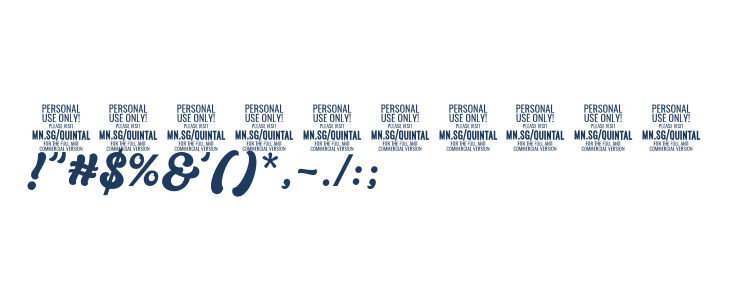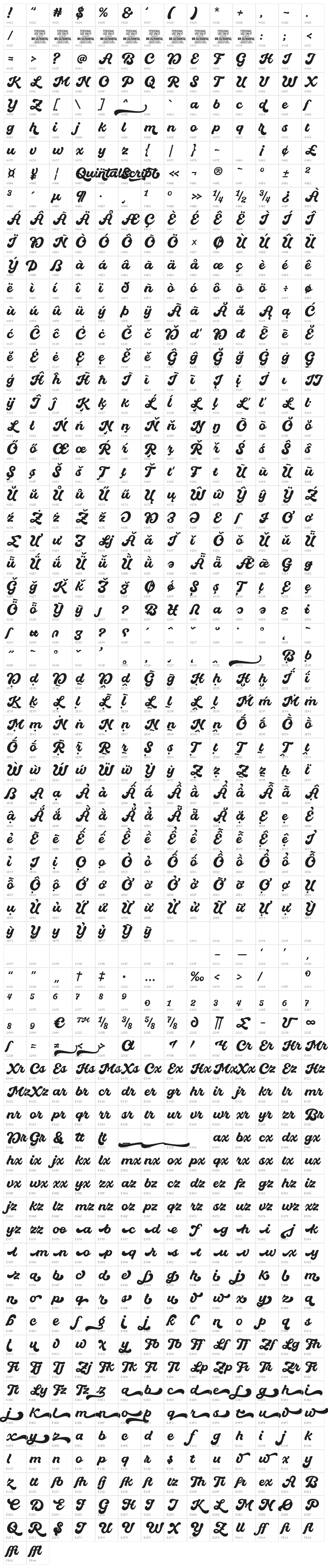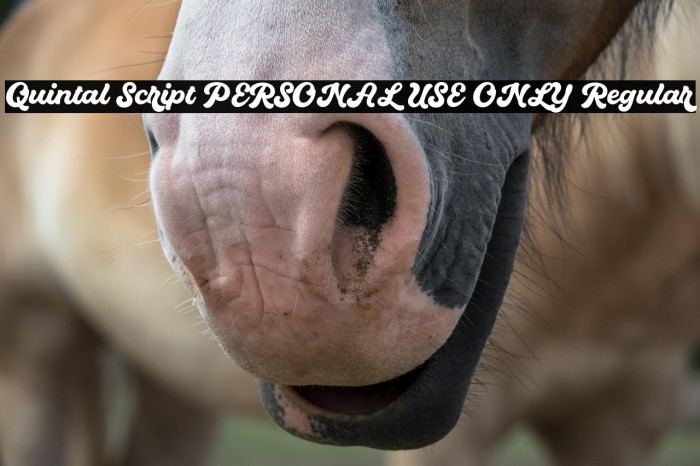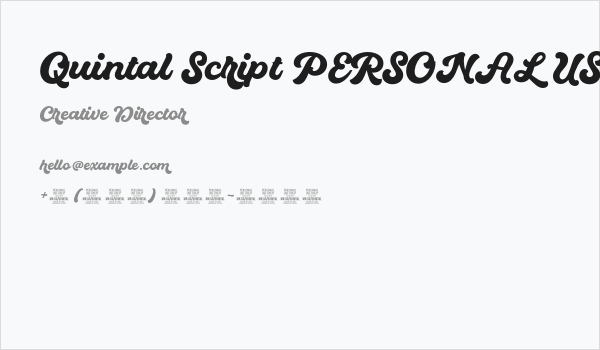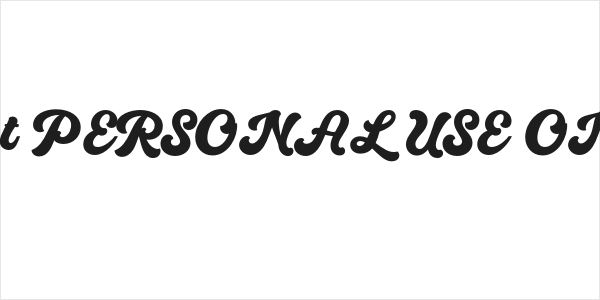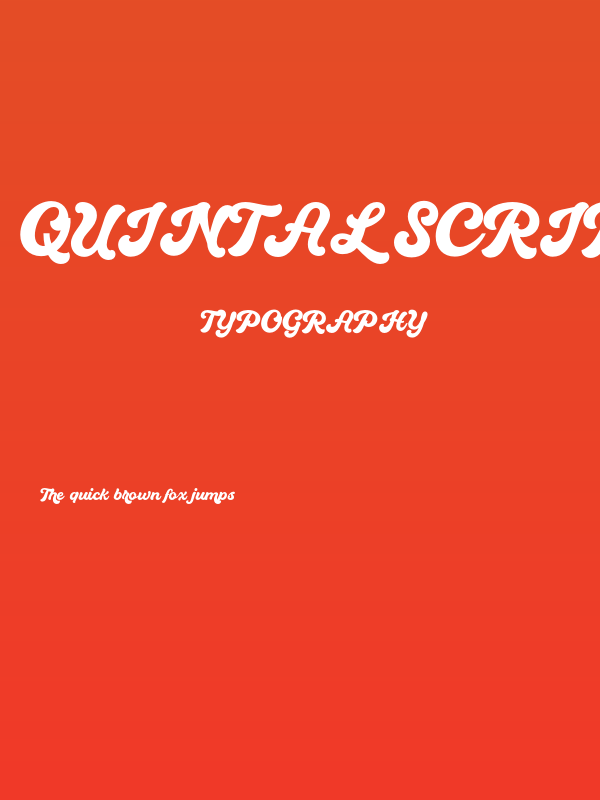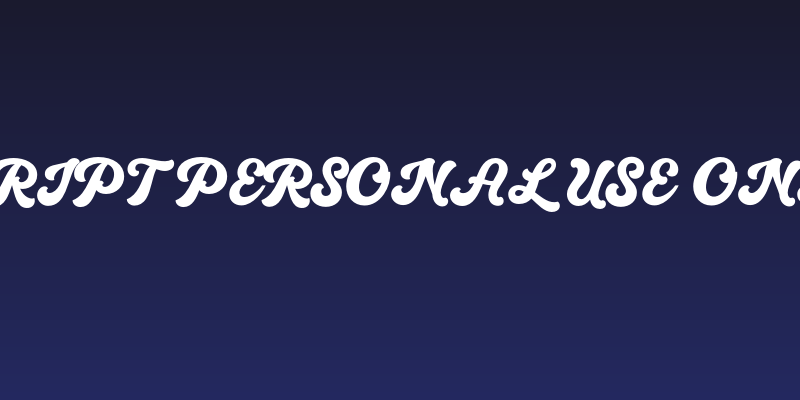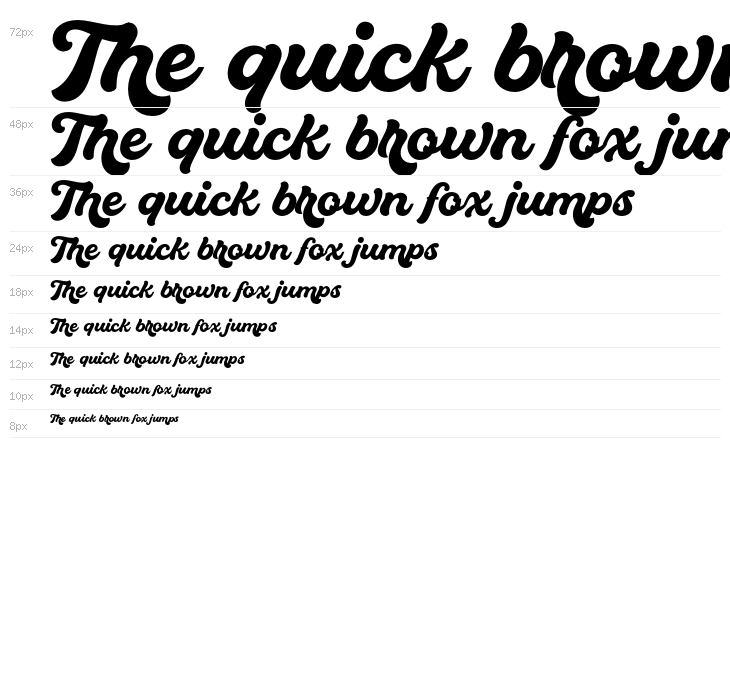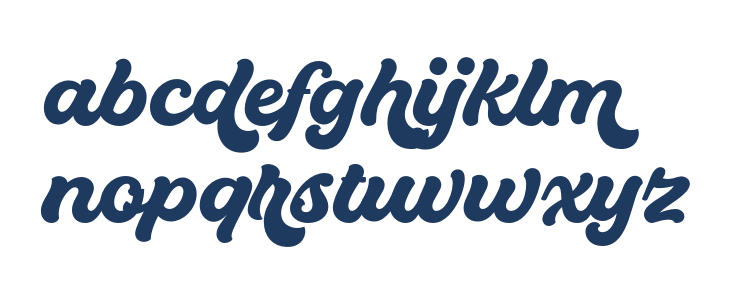
Quintal Script PERSONAL USE ONLY Regular Font
Quintal Script PERSONAL USE ONLY Regular Description
This script font features a bold and flowing design, characterized by its smooth, continuous strokes and elegant curves. The uppercase letters are slightly more ornate, with flourishes that add a touch of sophistication. The lowercase letters maintain a consistent flow, enhancing readability while retaining a stylish appearance. The numbers and special characters are crafted with the same attention to detail, ensuring a cohesive look across all elements. This font exudes a sense of modern elegance, making it suitable for a variety of creative applications.